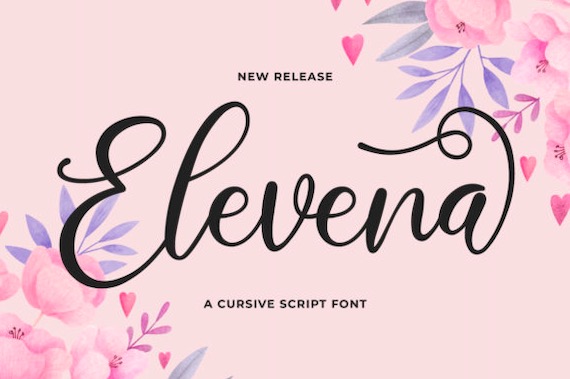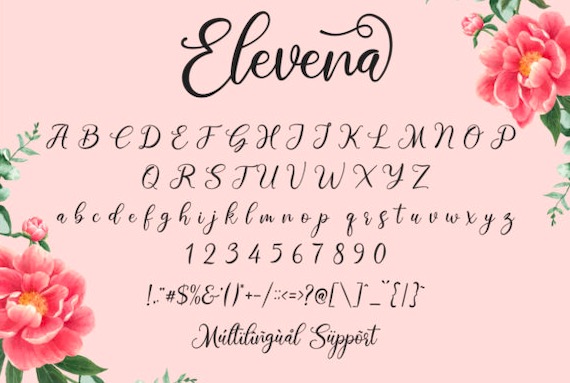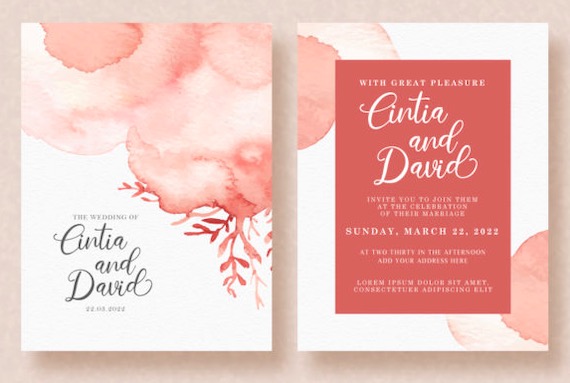
Elevena Font is a flowing, classy, and delicate handwritten typeface. It has beautiful and well balanced characters and as a result, it matches a wide pool of designs. Elevena features a varying baseline, smooth lines, gorgeous glyphs, and stunning alternates. Add it to your most creative ideas and notice how it makes them come alive!
Elevena Script Font
Font family: Elevena Font